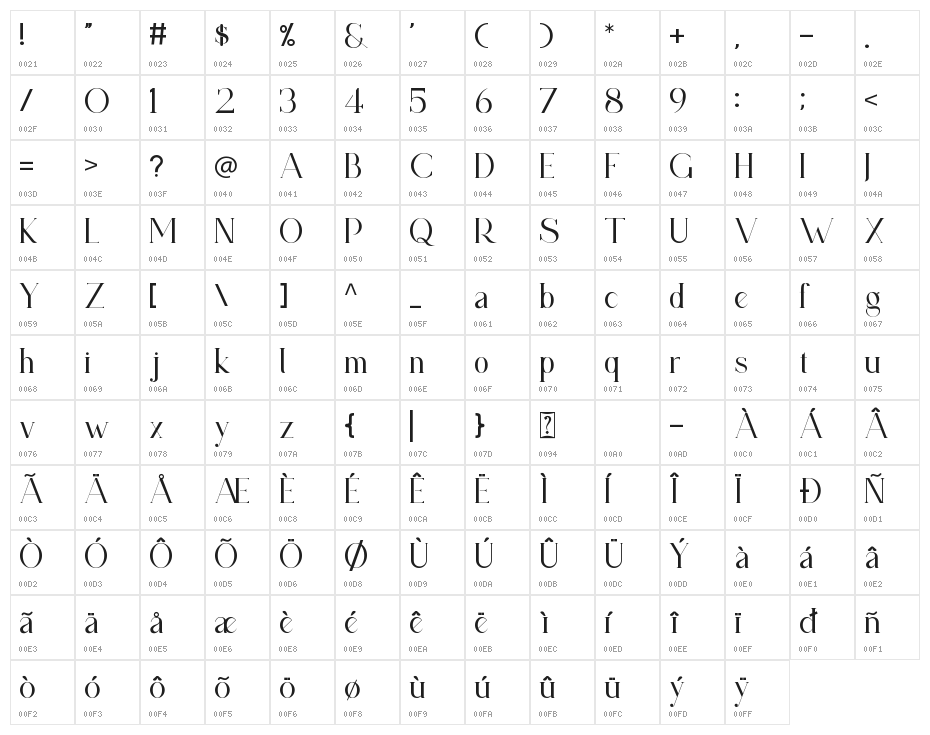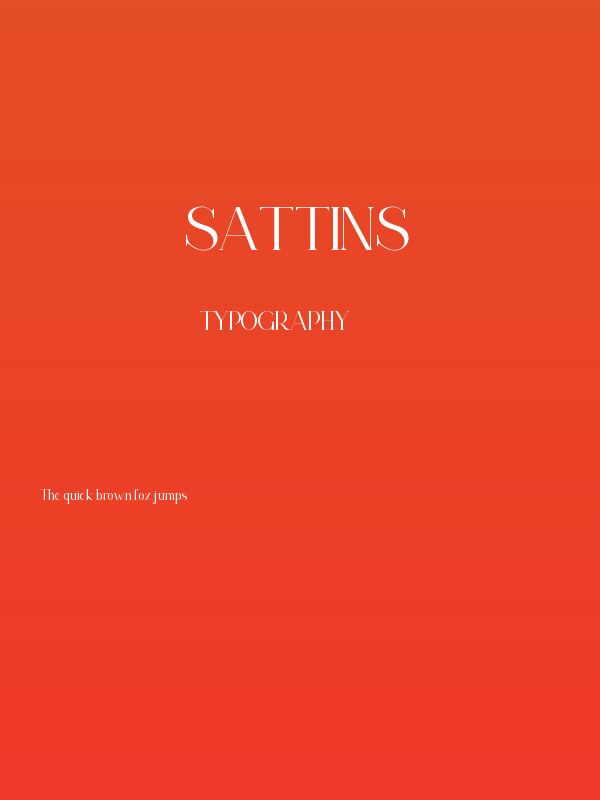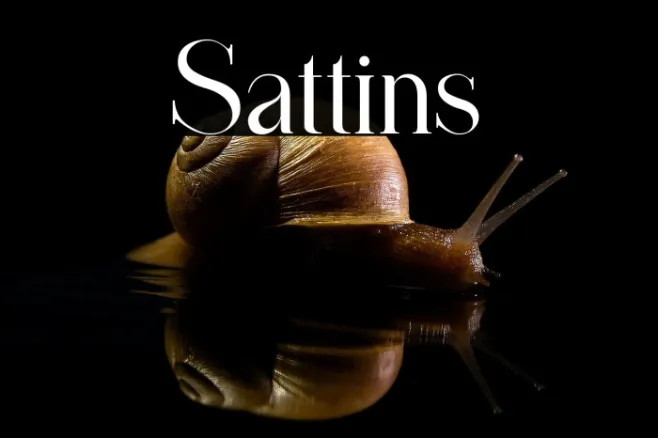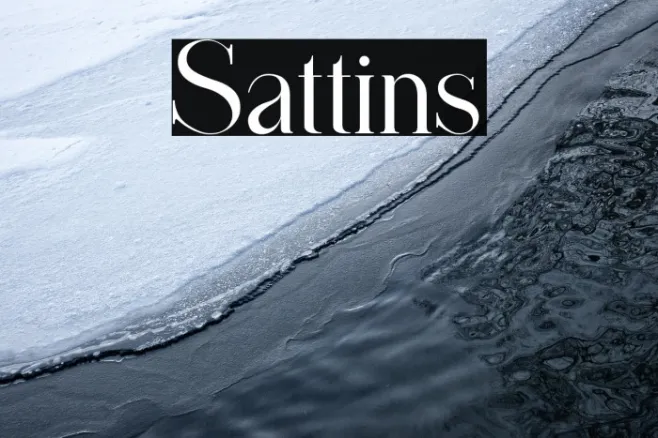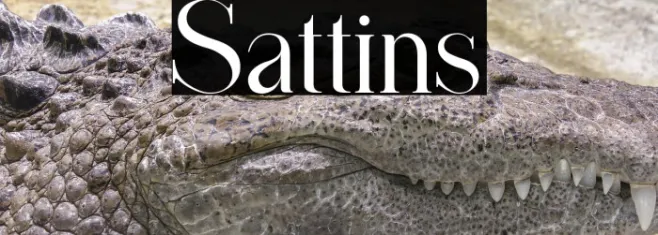
Sattins Font
Sattins Description
This font features a modern and elegant design with a high contrast between thick and thin strokes. The uppercase letters are tall and slender, exuding a sense of sophistication and style. The lowercase letters maintain a consistent flow with subtle curves, adding a touch of grace. The numerals are well-proportioned, complementing the overall aesthetic. Special characters are designed with the same attention to detail, ensuring versatility in various design contexts. The font's unique characteristics make it suitable for high-end branding and editorial design.
| Use Case | Headlines, Logos, Editorial design |
| Proposed Projects | Ideal for luxury branding, fashion magazines, elegant invitations, and editorial layouts. |